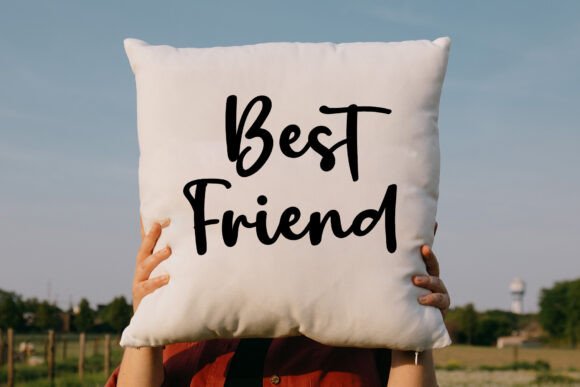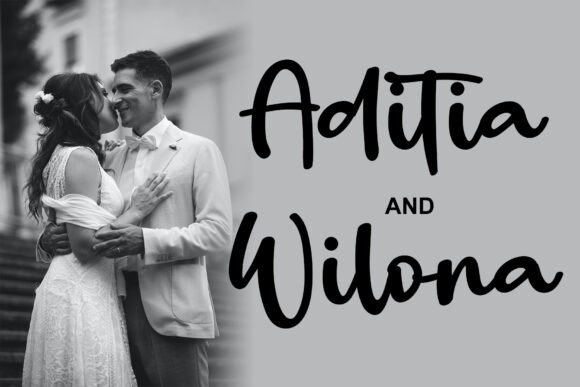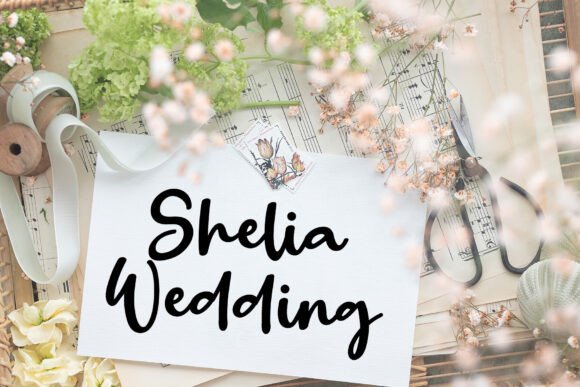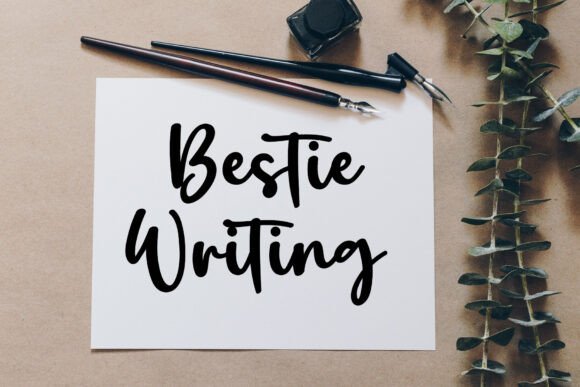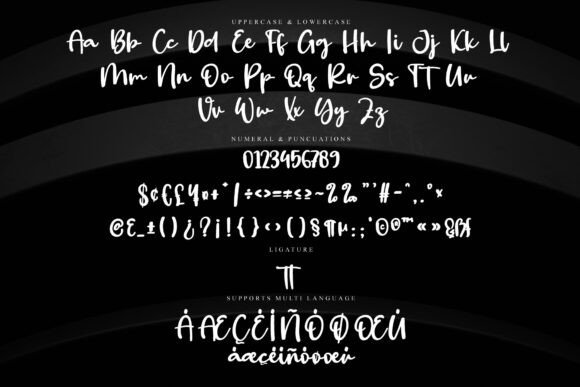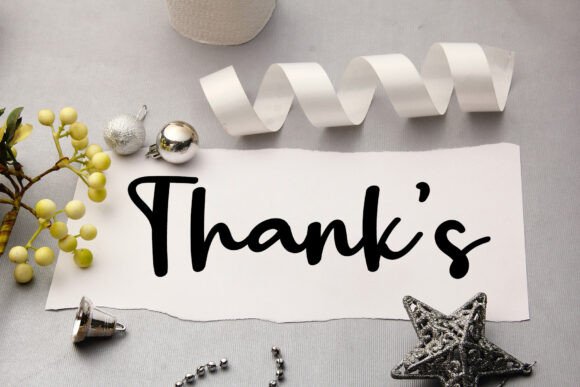
Introduction to Retro Signature Font
Retro Signature is a stylish and dainty script font.
Key Features of Retro Signature Font
Why Choose Retro Signature Font?
Retro Signature Font offers exceptional quality and versatility, making it a valuable addition to your design toolkit. Whether you’re creating for personal projects or commercial use, Retro Signature Font delivers professional results.